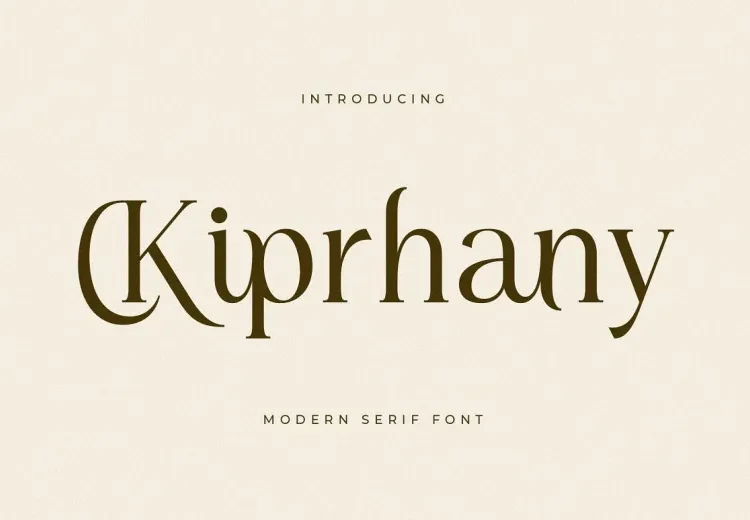
Kiprhany Font
Kiprhany is a contemporary serif typeface that exudes luxury and sophistication, making it an excellent choice for a wide array of design projects. Whether you’re crafting elegant logos, developing high-end branding, or designing chic homeware and product packaging, Kiprhany brings a touch of refined class to each application. Its versatile design is perfect for enhancing posters, clothing quotes, book covers, name cards, invitations, and greeting cards, as well as for adding a polished look to labels and watermarks in photography.
The font’s luxurious serif design is particularly well-suited for special occasions and high-profile events, where a touch of elegance is desired. From personal projects like wedding invitations to professional branding materials, Kiprhany provides a sophisticated aesthetic that elevates any design. Its graceful serifs and contemporary style ensure it stands out in both print and digital formats, making it a go-to choice for designers aiming to infuse their work with a sense of opulence and charm.